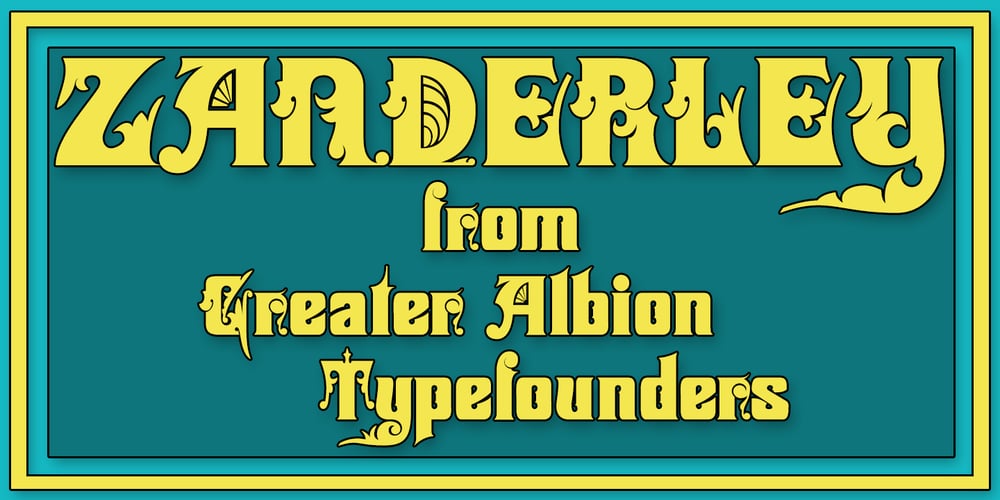
Zanderley
Zanderley font
Zanderley Font Family was designed by Paul James Lloyd and published by Greater Albion Typefounders. Zanderley contains 2 styles and family package options. Zanderley was inspired by a small, almost random sample from a turn-of-the-last- century calligrapher’s instructional manual. It’s a bit Roman, mixed with a little blackletter and a lot of random decorative fun.The family consists of two typefaces- Zanderley regular is a heavy, friendly an d fun display face. They are well complimented by Zanderley initials. Try them out soon!